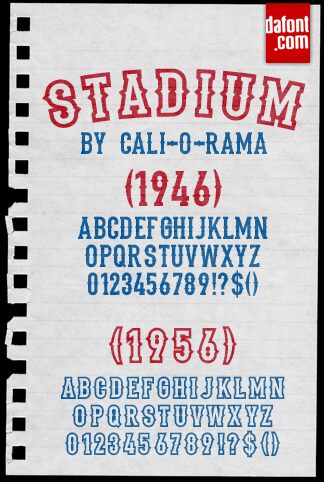
Stadium1956 by Florian Mihr is a free outlined Western display font with the broad stance of vintage stadium lettering. Heavy slab serifs, forked corners, and sharp waistline notches give the capitals a carved, almost architectural profile, with rounded letters keeping the set from feeling rigid.
Sports merchandise and country music posters are very different settings, but both suit its mix of athletic scale and frontier ornament. It also belongs on event signage and beverage packaging with a deliberately old-fashioned theme. The open interiors can echo jersey numbers, bordered badges, and label frames, turning the lettering into part of the surrounding illustration.
Stadium 1956